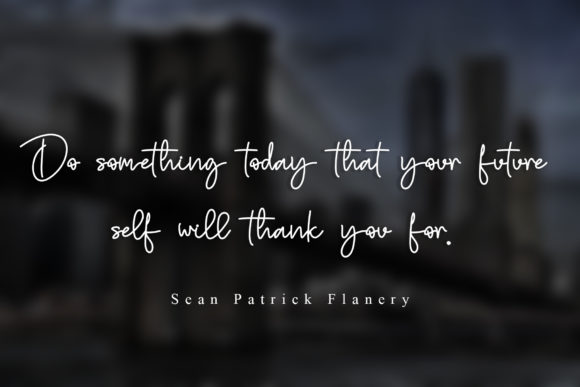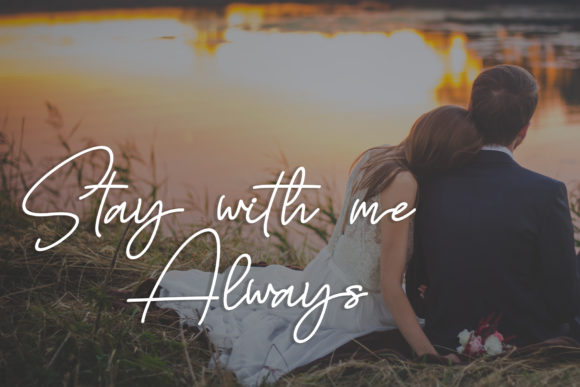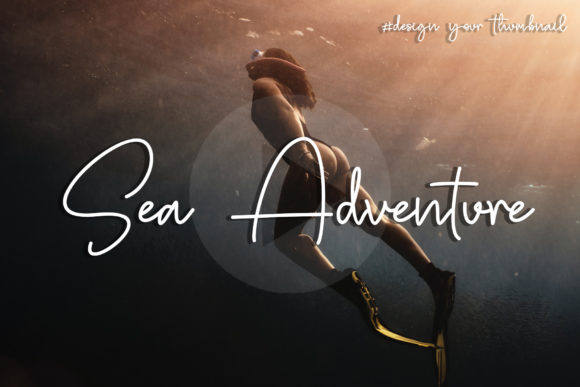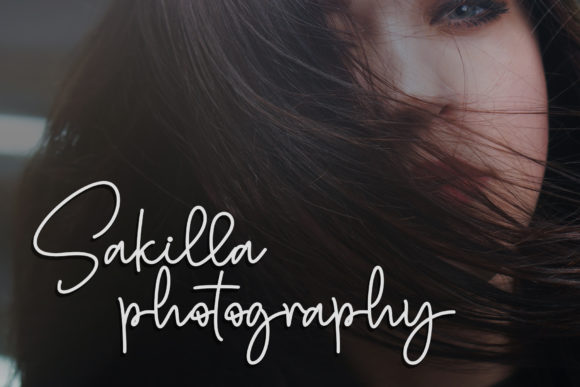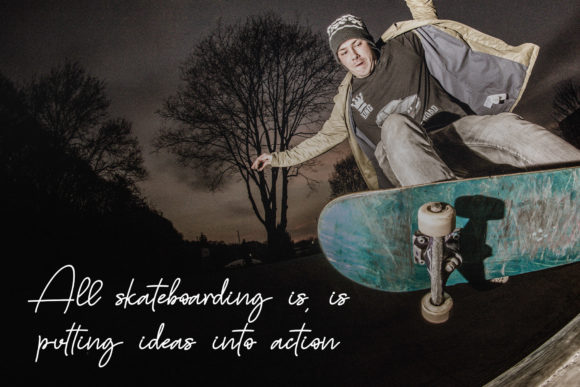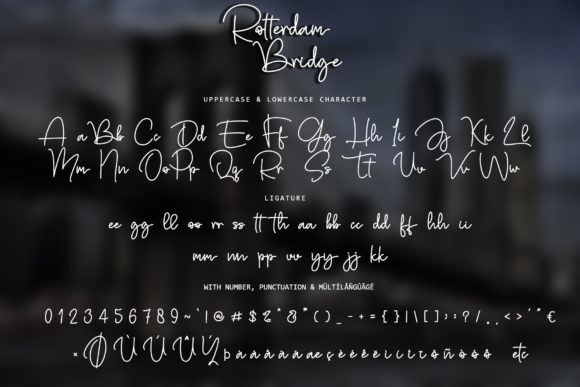
Rotterdam Bridge Font
About Rotterdam Bridge Font
Rotterdam Bridge sounds like a stunning and versatile handwritten font that can add elegance and sophistication to a wide range of design projects. Its flowing and elegant touch makes it perfect for various applications, and its distinct and timeless style sets it apart from other fonts. Here are some creative ideas on how to use Rotterdam Bridge font and bring your designs to life:
1. Wedding Invitations: Create romantic and elegant wedding invitations using Rotterdam Bridge font to set the perfect tone for the special day.
2. Thank You Cards: Design heartfelt and personalized thank you cards with Rotterdam Bridge font to express gratitude in a charming and stylish way.
3. Quotes and Typography Art: Utilize the font to create stunning typography art featuring inspirational quotes or phrases.
4. Greeting Cards: Design beautiful and unique greeting cards for various occasions using Rotterdam Bridge font.
5. Logos and Branding: Incorporate the font into logos and branding materials to add a touch of sophistication and personality to your brand.
6. Business Cards: Use Rotterdam Bridge font to create memorable and stylish business cards that make a lasting impression.
7. Social Media Graphics: Design eye-catching and visually appealing social media posts and graphics with the font’s flowing and elegant style.
8. Blog Graphics: Incorporate Rotterdam Bridge font into blog post graphics to create a refined and elegant look for your blog content.
9. Book Covers: Use the font in book cover designs to create captivating and visually appealing typography that complements the book’s theme.
10. Menu Cards: Design elegant and stylish menu cards for restaurants and special events using Rotterdam Bridge font.
11. Product Packaging: Use the font to create refined and visually appealing labels and packaging for various products.
12. Art Prints: Design artistic prints featuring illustrations and typography with Rotterdam Bridge font to create stunning wall art.
13. Apparel Design: Incorporate the font into t-shirt designs, hoodies, and other apparel to add a touch of elegance to your clothing line.
14. Event Invitations and Announcements: Create eye-catching and sophisticated invitations and announcements for events and celebrations using Rotterdam Bridge font.
15. Personal Stationery: Use the font to create beautiful personal stationery, including note cards, envelopes, and thank-you cards.
16. Calendars: Design elegant and artistic calendars featuring Rotterdam Bridge font to stay organized in style.
17. Wedding Signage: Design stylish and elegant wedding signage, such as welcome signs and seating charts, using the font’s flowing and timeless look.
18. Digital Marketing: Utilize the font in digital marketing campaigns to create visually captivating and sophisticated content.
19. Scrapbooking: Incorporate Rotterdam Bridge font into scrapbooking layouts to add elegant captions and titles to your memories.
20. Home Decor: Use the font in DIY home decor projects, such as creating custom wall art or decorative signs.
In conclusion, Rotterdam Bridge is a flowing and elegant handwritten font that offers an incredibly distinct and timeless style. Its versatility allows it to shine in various applications, from wedding invitations and logos to social media graphics and beyond. Whether you’re designing for special events or everyday projects, Rotterdam Bridge font is a wonderful choice to elevate your designs and add an elegant touch that captures attention.